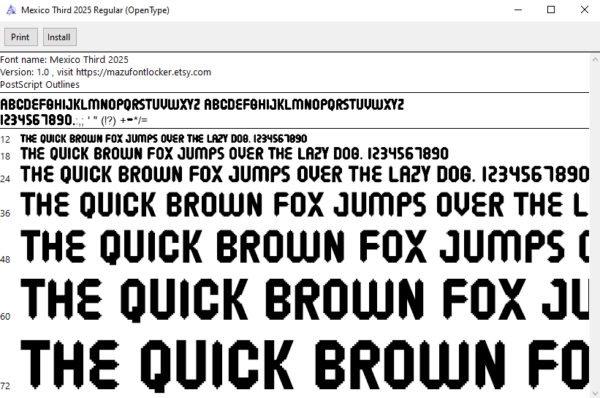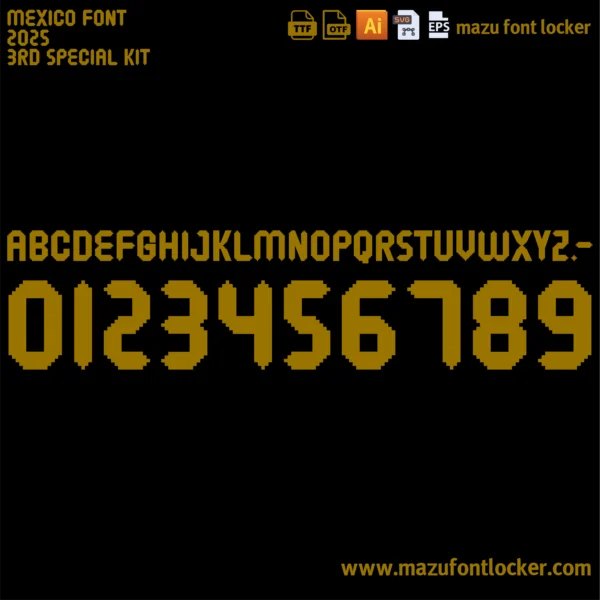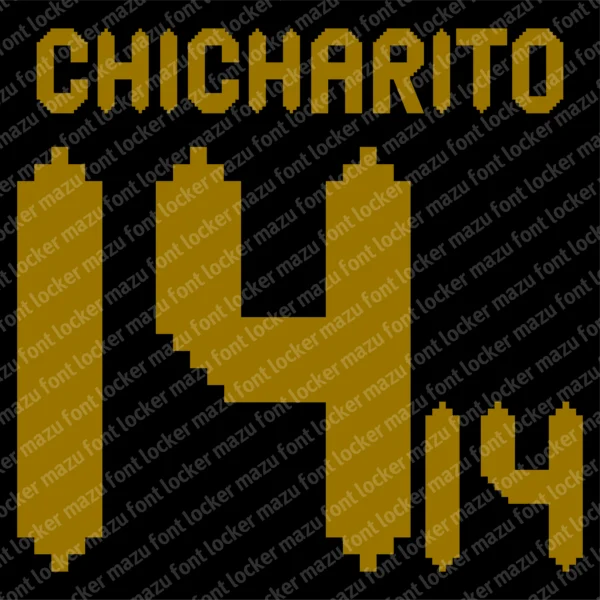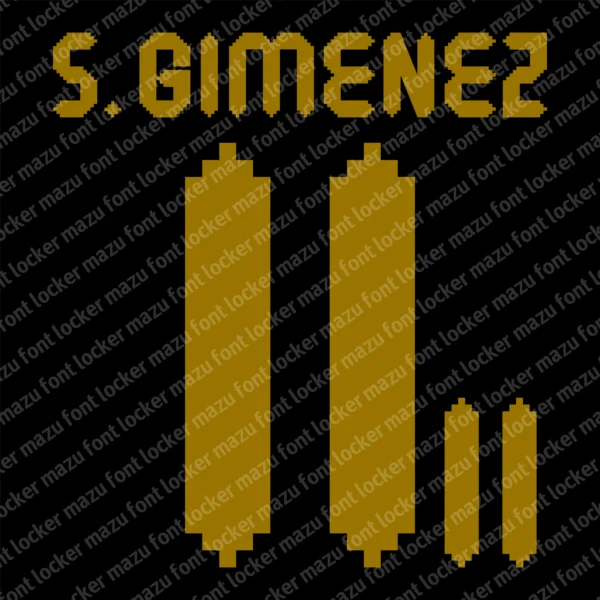
Mexico 2025 Third Font – Explosive Tricolor Masterpiece
Download Mexico 2025 Third Font now and unleash the vibrant power of Mexican football excellence. This bold Mexico 2025 Third Font captures the fiery passion, rich heritage, and commanding presence of El Tri in their stunning 2025 third kit. Perfect for creating high-impact posters, fan merchandise, social media graphics, and custom jerseys. With its dynamic lettering and premium quality, Mexico 2025 Third Font delivers exceptional visual impact that radiates national pride and championship energy.
Mexico 2025 Third Font – Authentic National Team Typeface
The Mexico 2025 Third Font is a premium typeface that accurately recreates the official match lettering worn by the Mexico national team on their 2025 Third Kit. This high-quality font kit captures the bold, modern, and striking typography specially designed for Mexico’s alternative kit.
Designed for professional designers and passionate Mexico fans, the Mexico 2025 Third Font delivers perfect authenticity for creating jersey mockups, fan merchandise, matchday posters, social media graphics, and much more. It perfectly complements the unique color scheme and identity of the 2025 Third Kit.
This font stands out because of its sharp details and powerful presence. Every letter and number is crafted to match the exact style used on the players’ shirts in the 2025 Third Kit. Whether you are making realistic shirt templates or eye-catching football content, the Mexico 2025 Third Font gives your designs that authentic El Tri national team look.
The letterforms in the Mexico 2025 Third Font are tall, bold, and highly readable. The strokes have a strong and controlled weight that looks powerful on the back of jerseys while maintaining excellent clarity and a modern aesthetic.
The numerals use bold curves and firm edges, giving them a confident and premium appearance. This design ensures great legibility whether used in large print formats, digital mockups, or video content.
• Full uppercase A–Z and numbers 0–9 in authentic Mexico 2025 Third style
• Special Mexico national team logo glyph for accurate shirt number detailing
• Includes the exact logo glyph placement used under player numbers